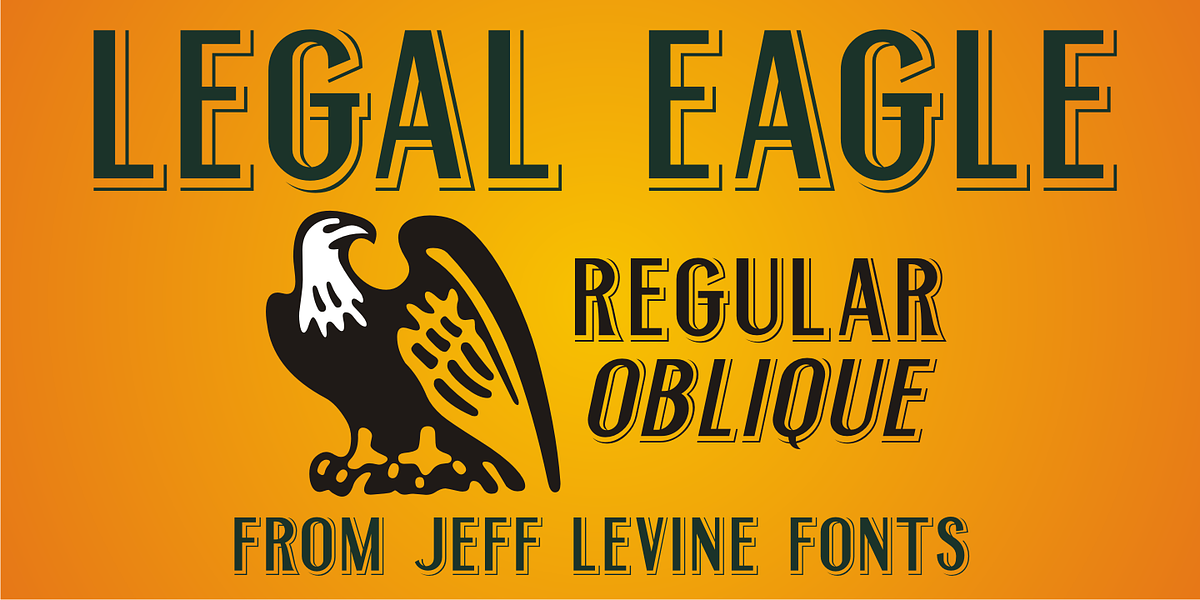
Legal Eagle JNL
The lettering on the cover of the sheet music for 1919’s “The World is Waiting for the Sunrise” was set in a decorative sans serif with an engraved line adorning each character.
Reminiscent of the headlines of legal documents, way bills, stock certificates and the like, the digital version of the design was given the name Legal Eagle JNL and is available in both regular and oblique versions.
A companion font without the engraved lines is also available as <a href="/fonts/jeff-levine/junior-clerk-jnl">Junior Clerk JNL</a>.